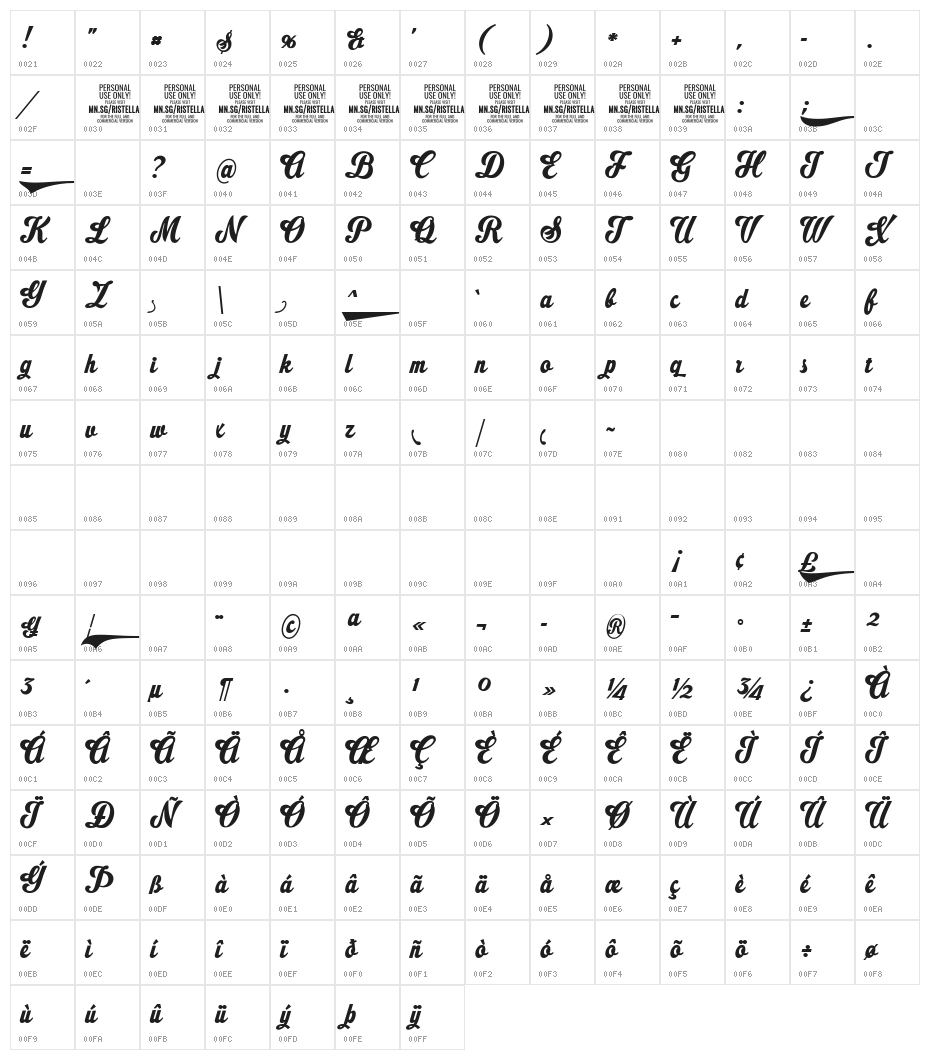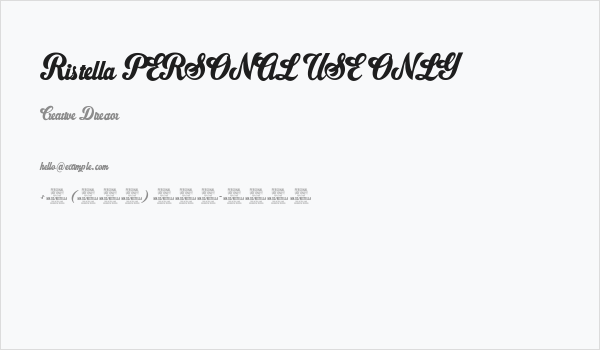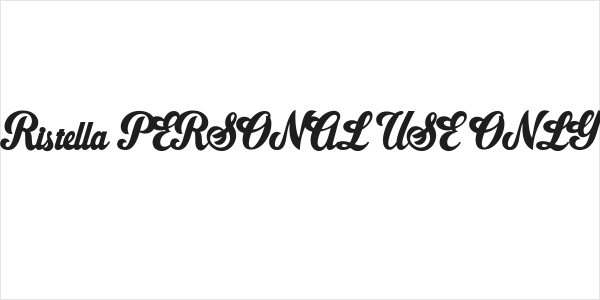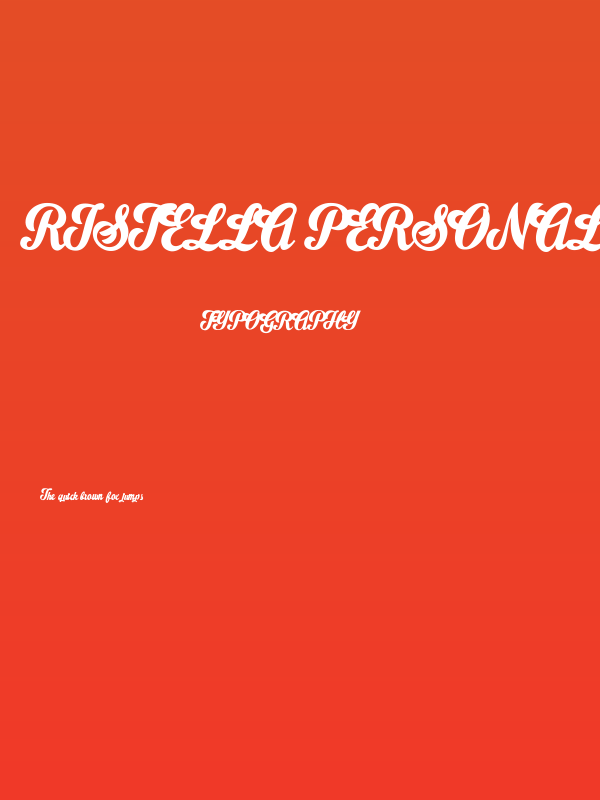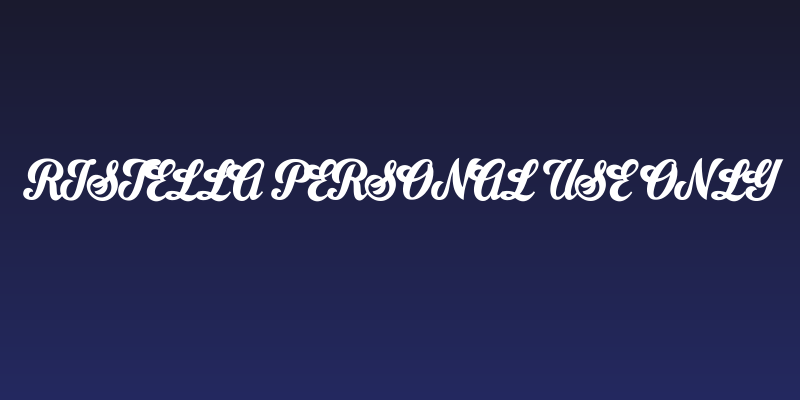
Ristella PERSONAL USE ONLY Font
Ristella PERSONAL USE ONLY Description
This font features an elegant and flowing script style with a modern twist. The uppercase letters are characterized by their intricate loops and swashes, giving them a sophisticated and decorative appearance. The lowercase letters maintain a consistent flow, with smooth curves and a slightly italicized slant, enhancing readability while retaining a stylish flair. The numerals and special characters are designed to complement the overall aesthetic, featuring similar curves and embellishments. This font is ideal for projects that require a touch of elegance and sophistication.
| Proposed Projects | Perfect for wedding invitations, branding, logos, and elegant stationery. |